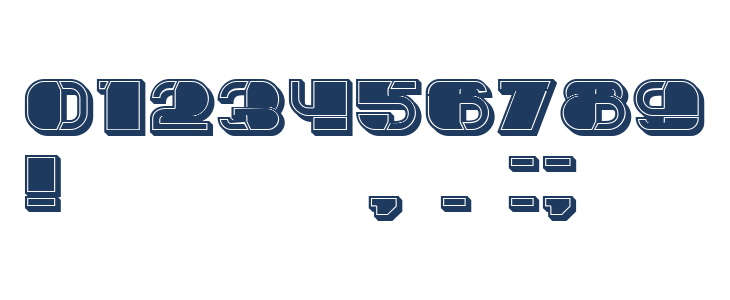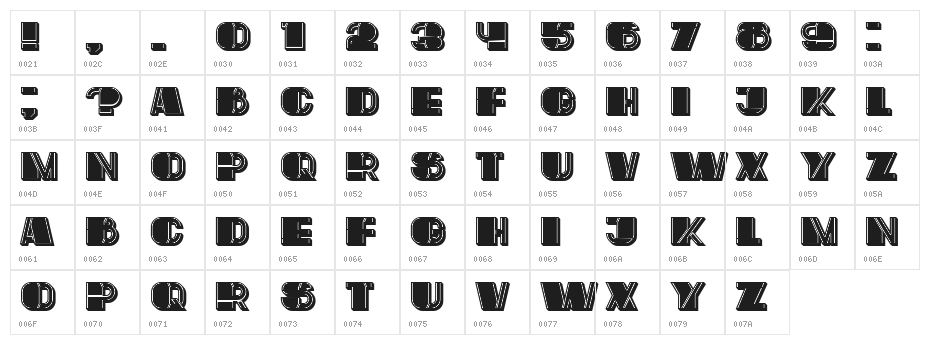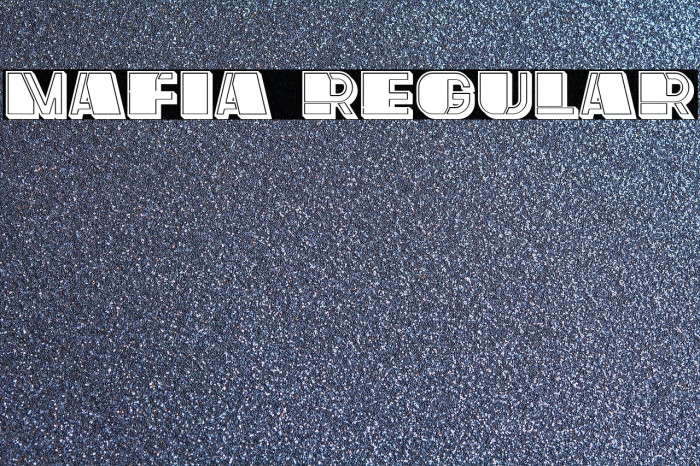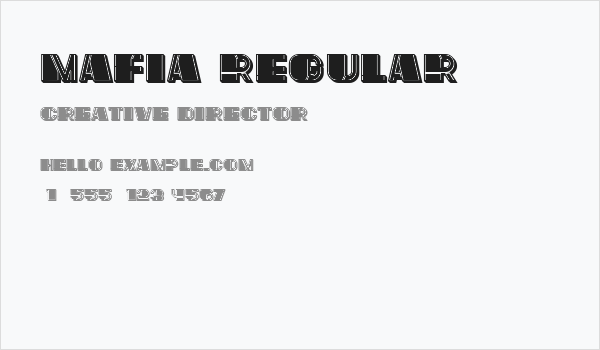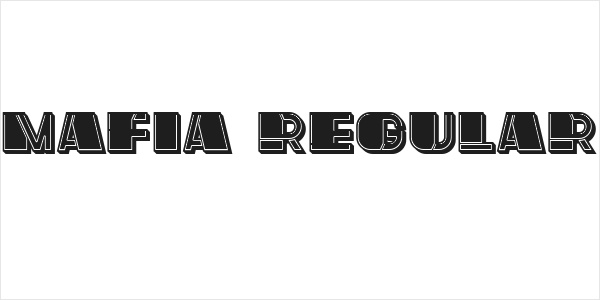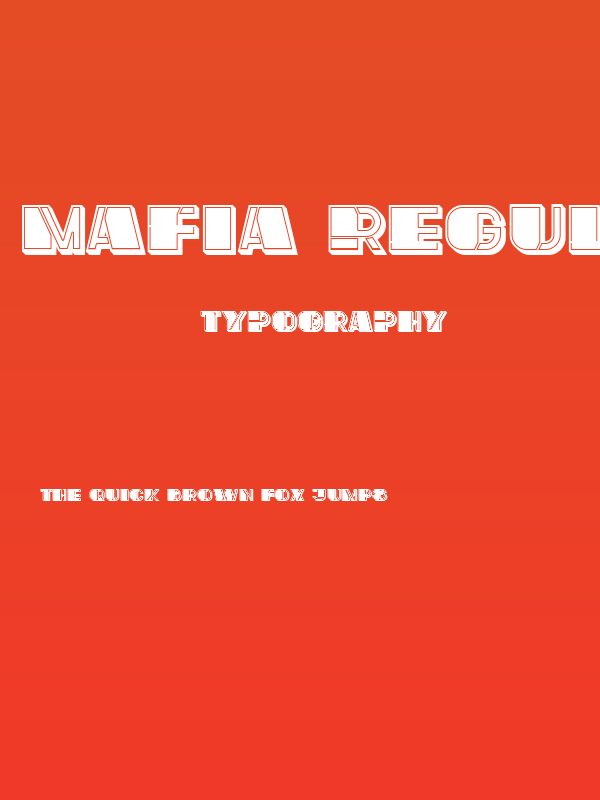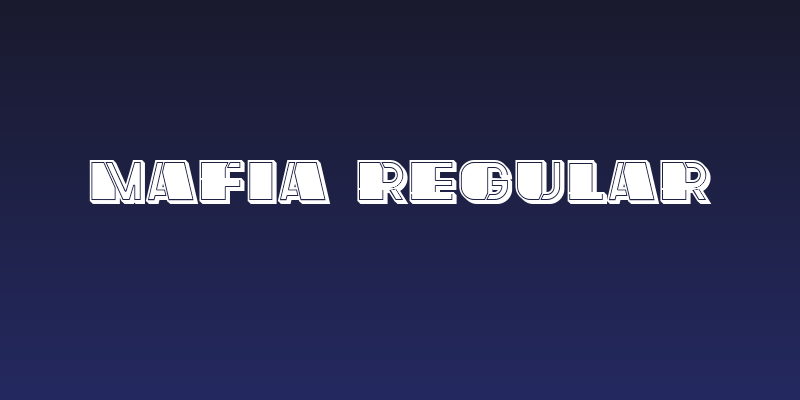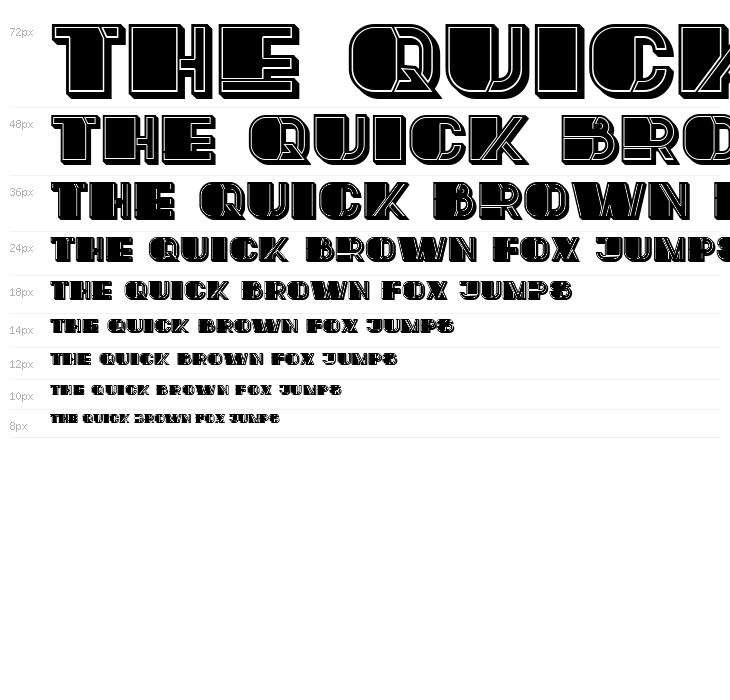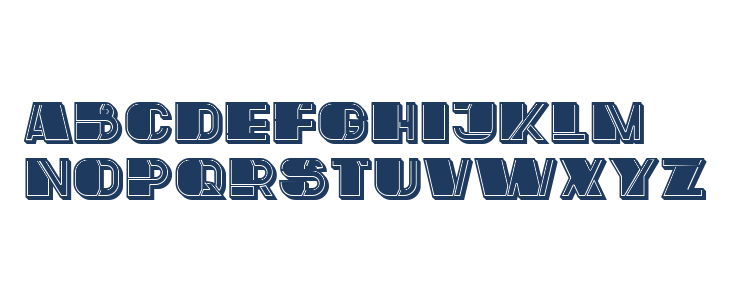
Mafia Regular Font
Mafia Regular Description
This font features a bold and striking design with a strong presence. Each character is crafted with a thick, block-like structure, giving it a robust and impactful appearance. The letters are outlined with a contrasting stroke, adding depth and a three-dimensional effect. The geometric shapes and clean lines contribute to a modern and edgy aesthetic, making it suitable for attention-grabbing headlines and titles. The numbers and special characters maintain the same bold style, ensuring consistency across all elements. This font is ideal for projects that require a powerful and dynamic visual statement.